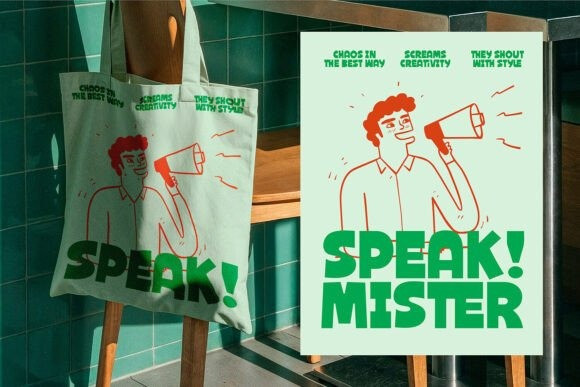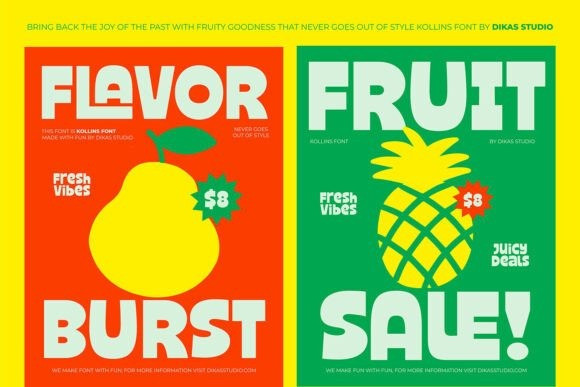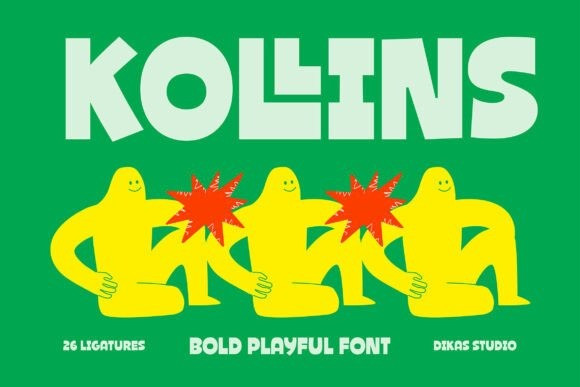
Kollins Font
Kollins Font is a bold, hand-drawn sans serif display font designed to bring energy, personality, and fun into any project.Its chunky shapes and playful rhythm make every word feel alive, while the unique alternate characters add expressive variation for eye-catching typography.
This striking typeface features intentionally uneven letterforms and a heavy, charismatic weight, ensuring it leaps off the page in any creative context. The Kollins font is equipped with 26 ligatures, providing extensive typographic options to maintain flow and customize your unique headlines.
Use the Kollins typeface for vibrant posters, creative packaging, edgy branding, and any project that requires a bold, memorable, and cheerfully unconventional aesthetic. The strong, quirky character of the Kollins font guarantees an instantly recognizable and unique visual identity.
Perfect for logotypes, posters, headlines, children’s designs, and any project that needs standout lettering, Kollins delivers a joyful handcrafted charm.